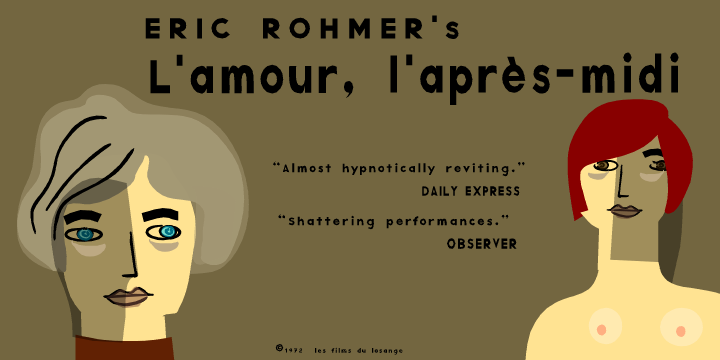
Old Jerzy Gothic
from Resident
Designed by: V.H. Fleisher
Designed when: 2008
Design owned by: Resident
Old Jerzy Gothic
Created in 2008 by V.H. Fleisher, the Old Jerzy Gothic font is a geometric sans serif typeface.
Old Jerzy Gothic is ideal for posters and is legible at smaller sizes as well.